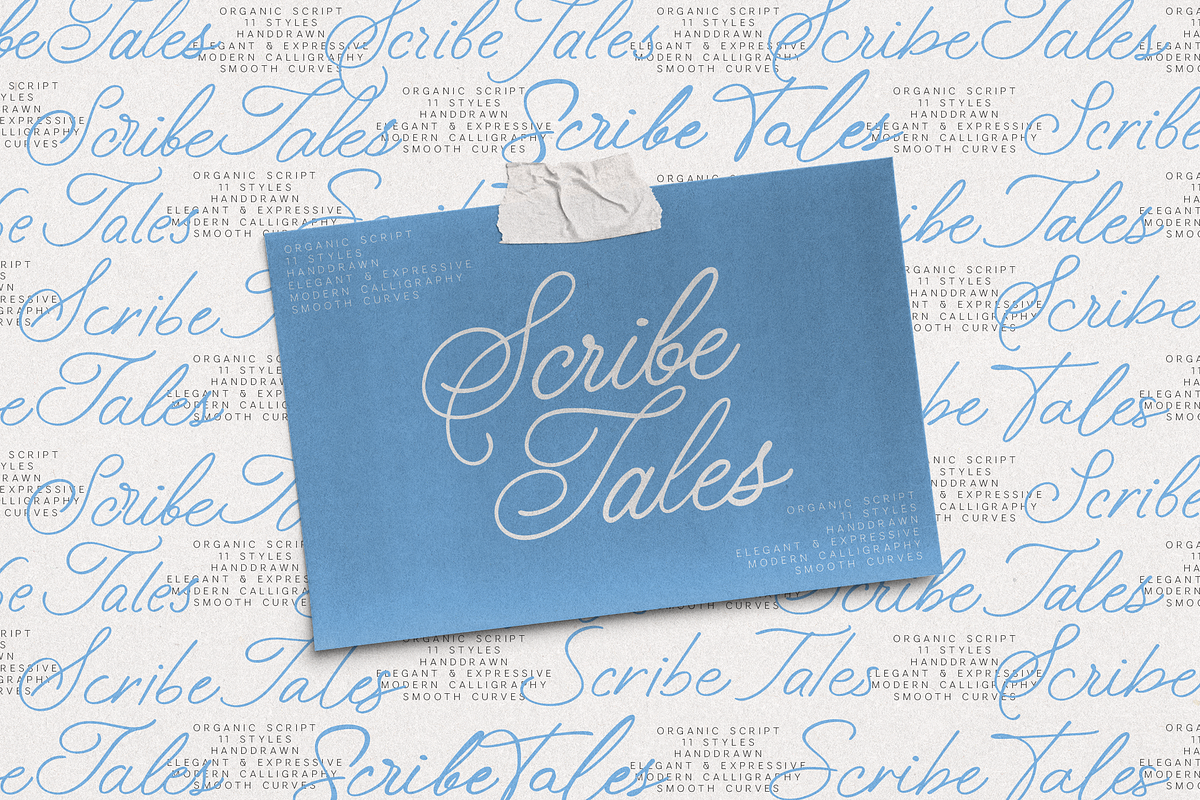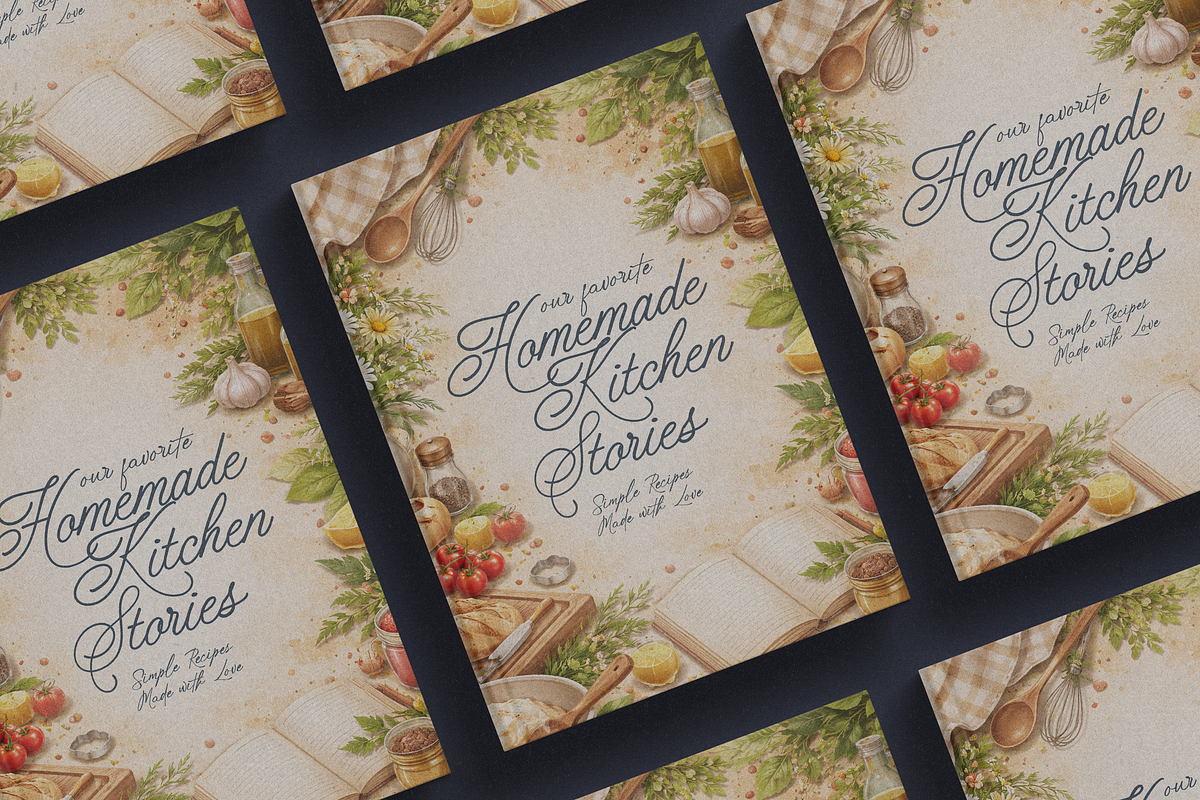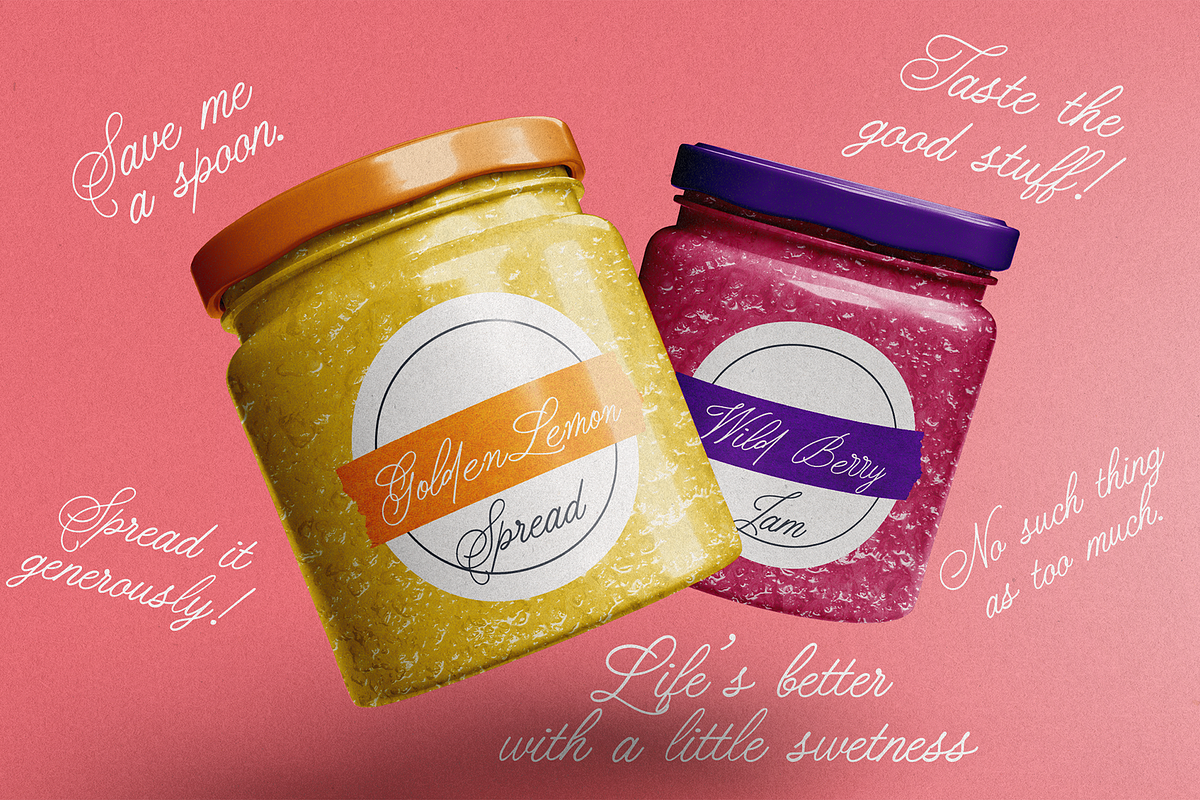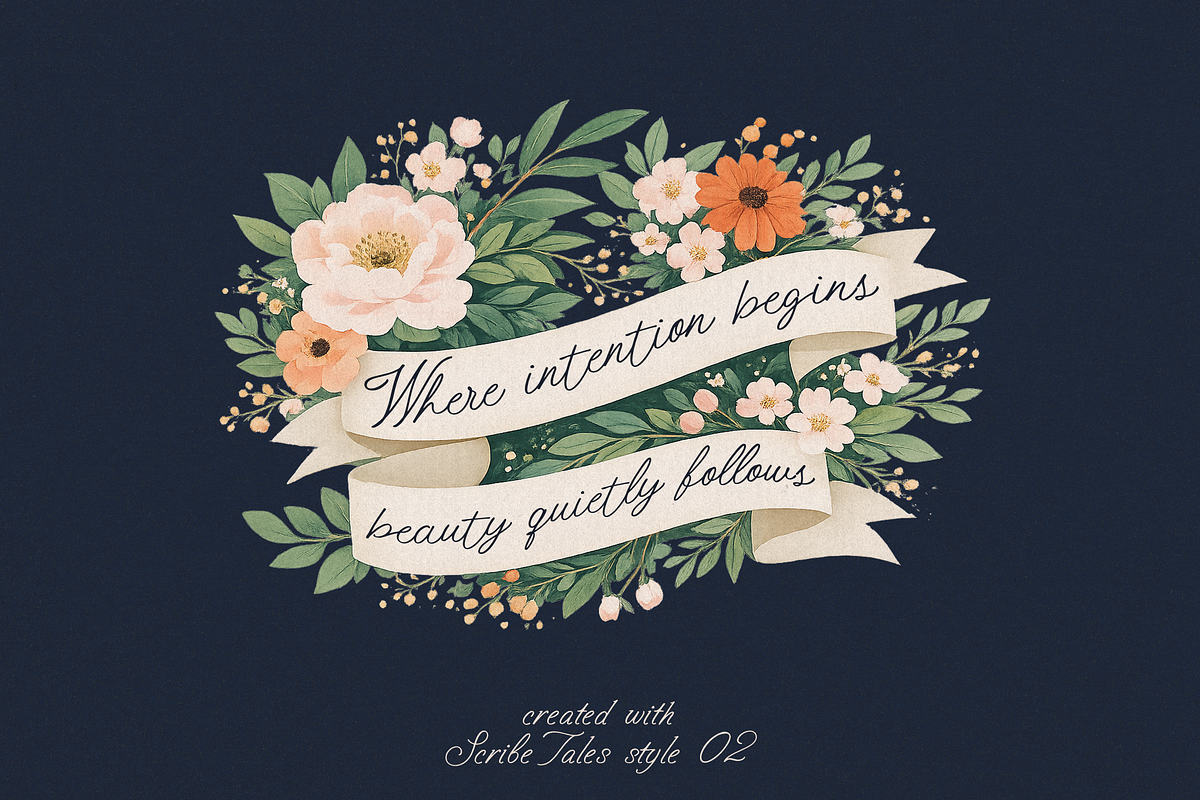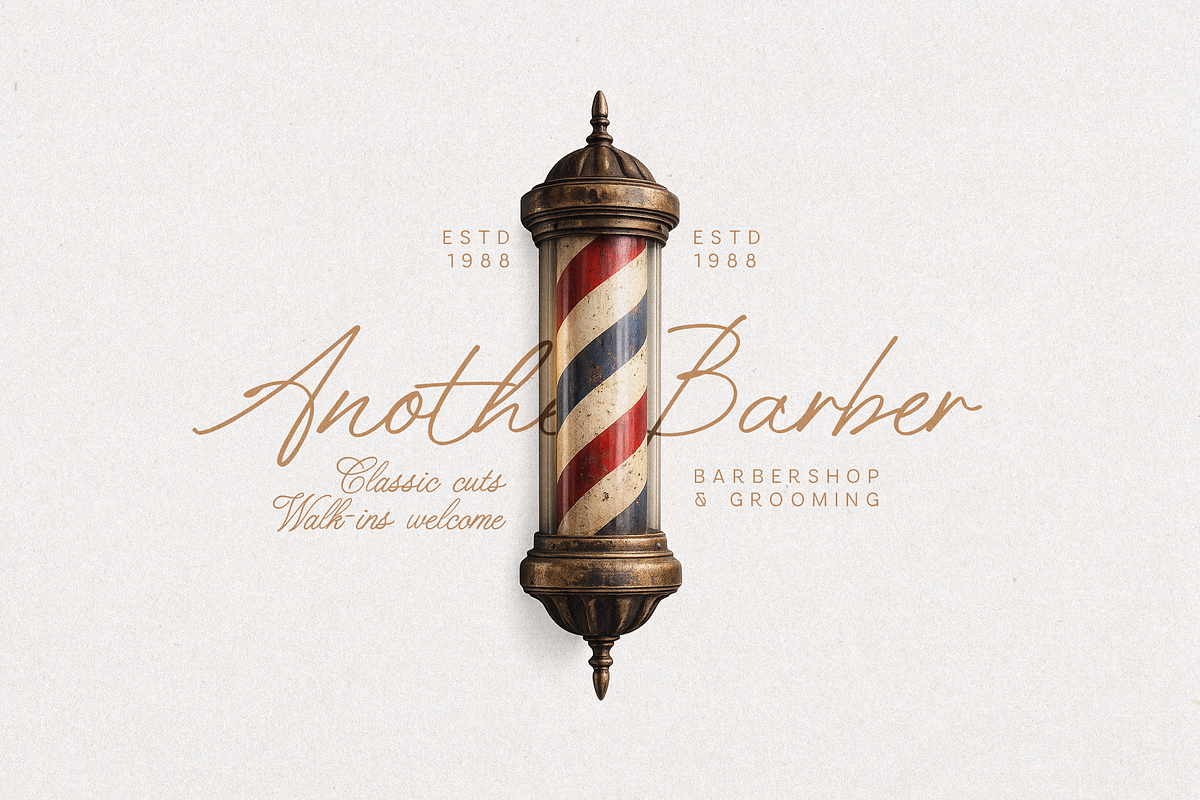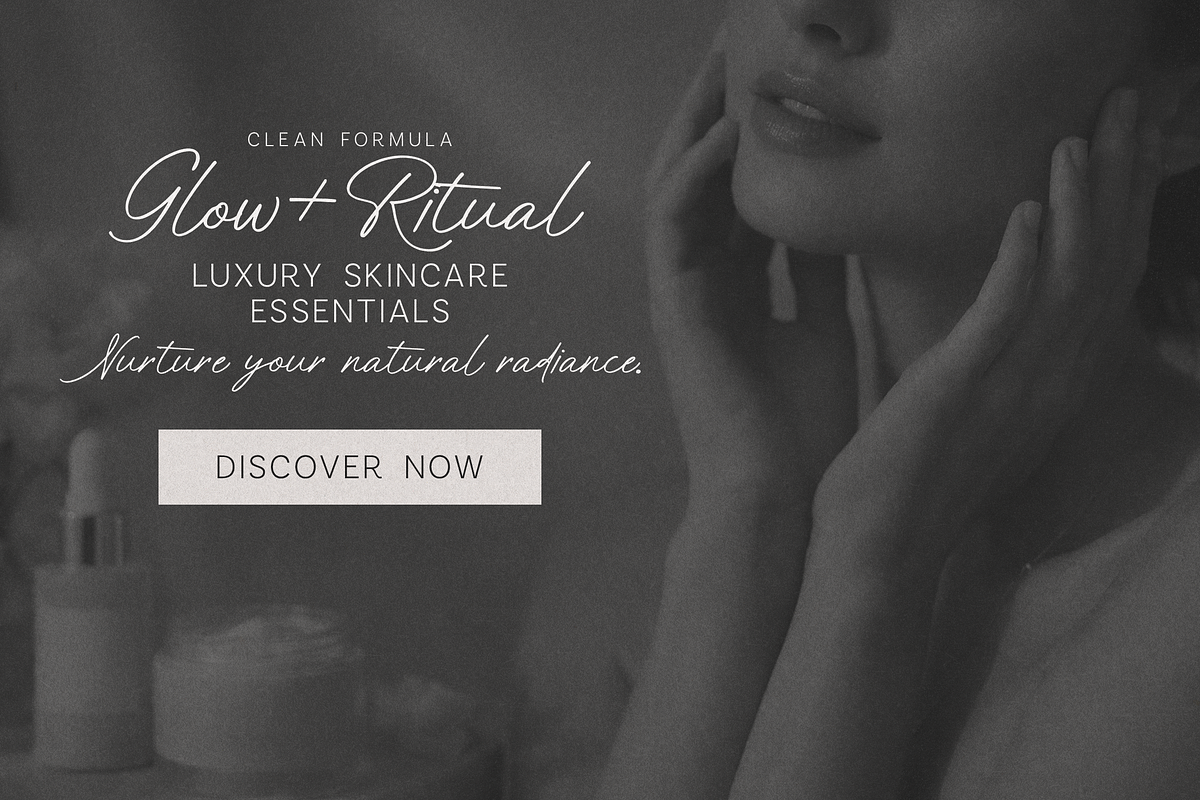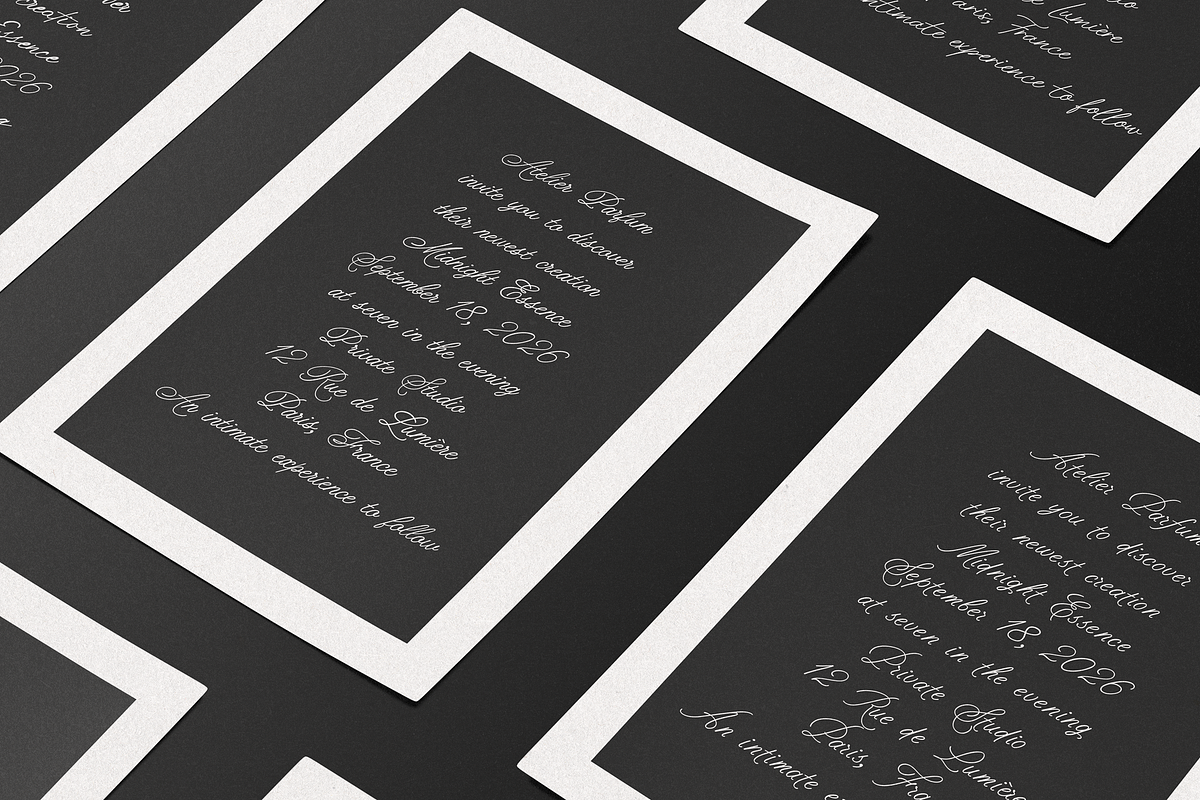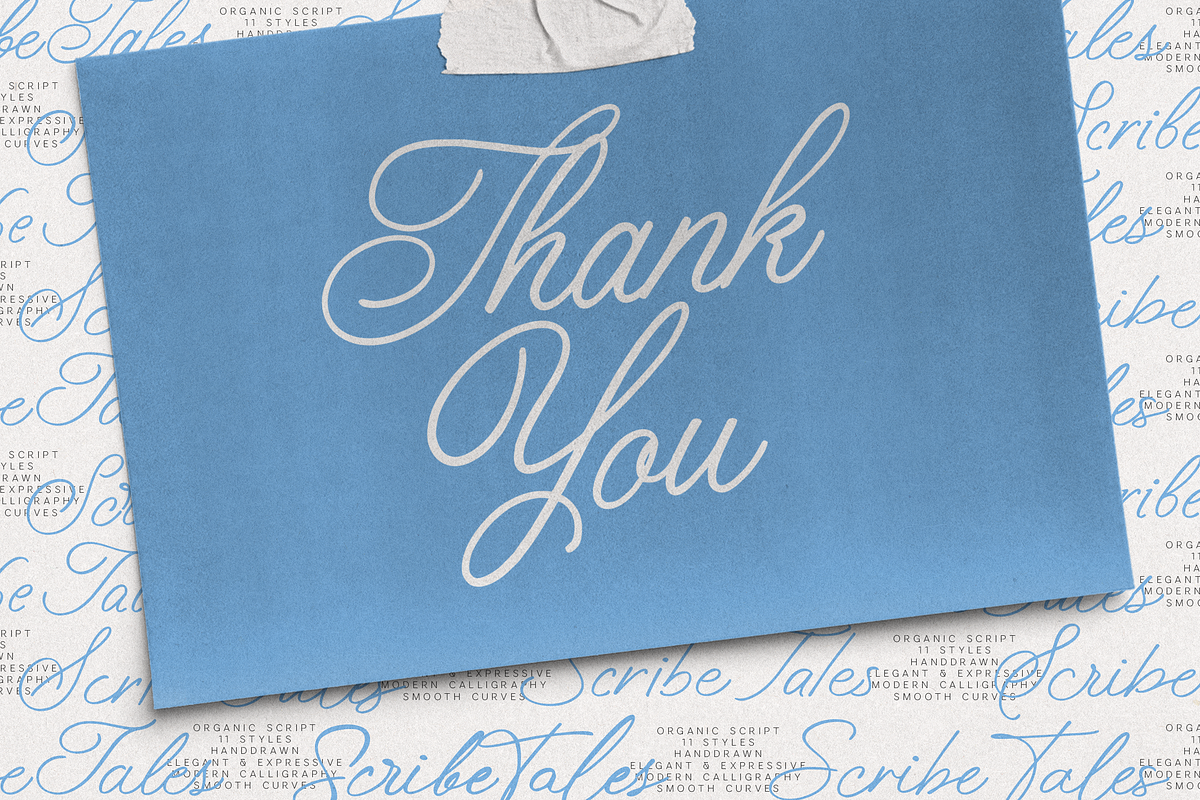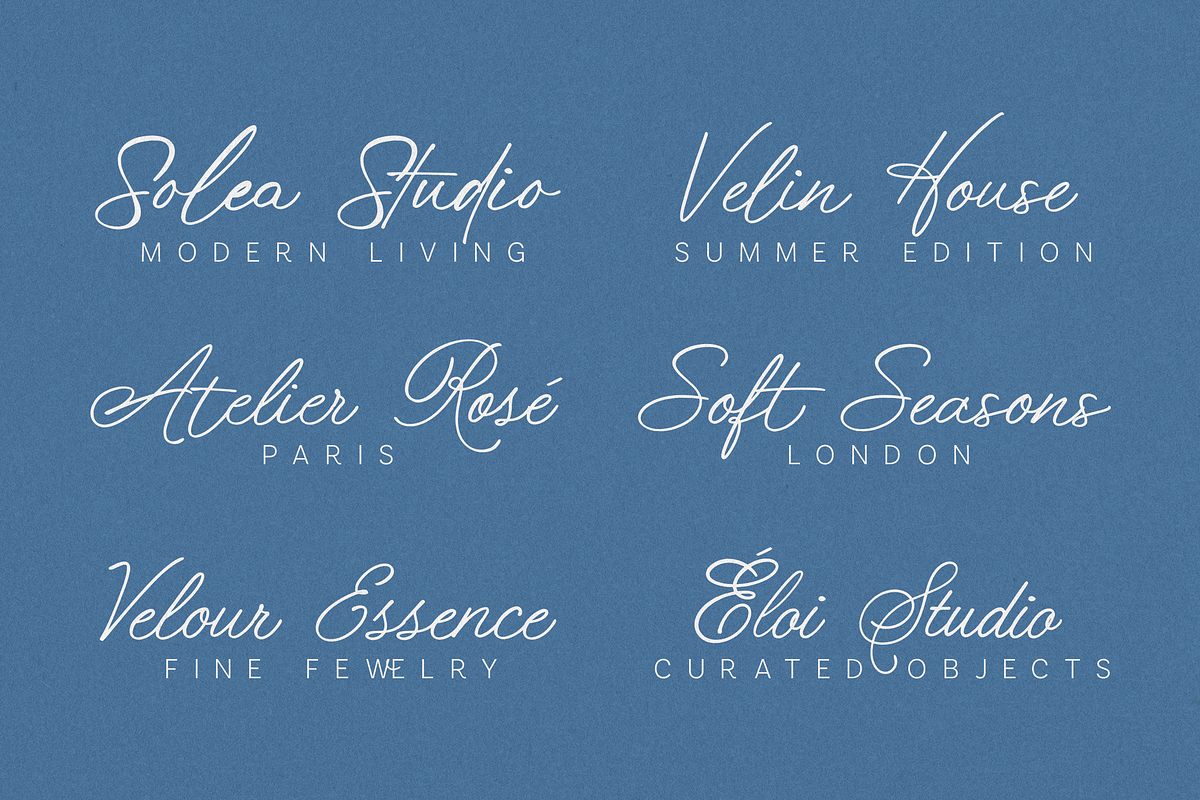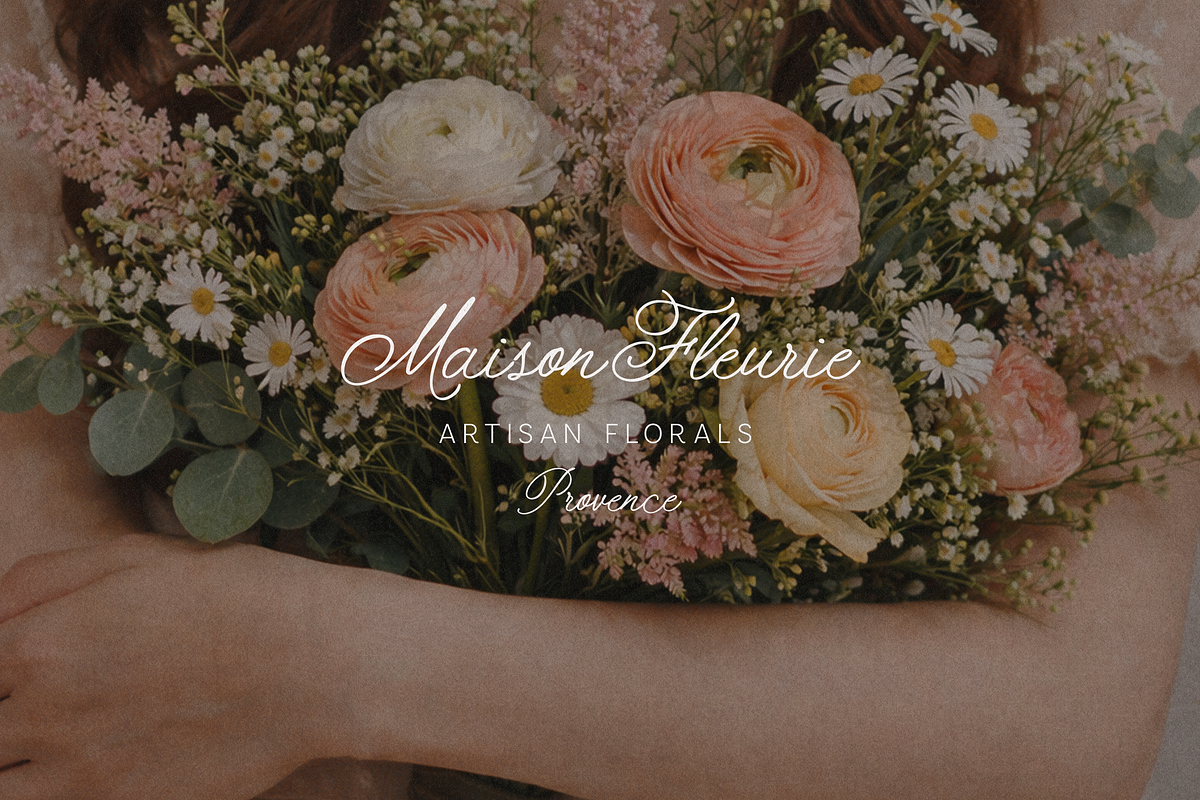
ScribeTales - Elegant Organic Script
Scribe Tales - Elegant Organic Script Typeface
Scribe Tales is a refined handwritten script font that blends natural flow with modern elegance. Designed with smooth curves and expressive strokes, it delivers a sophisticated calligraphy feel while remaining highly versatile for both digital and print design.
This typeface captures a perfect balance between luxury, warmth, and organic charm, making it ideal for branding, packaging, invitations, and editorial layouts.
Scribe Tales comes with a Regular Script + 10 unique stylistic variations, giving you full creative control over the look and personality of your typography.
Each stylistic set is also provided as a separate font (Style 01–10) - so you can quickly switch styles without digging into OpenType panels.
Elegant & modern handwritten script
1 Regular style + 10 stylistic sets (SS01–SS10)
Separate font files for each style (Style 01–10)
Smooth curves with natural handwritten feel
Beautiful ligatures and flowing connections
Uppercase & lowercase characters
Perfect for both headlines and refined body accents
Scribe Tales was crafted to elevate:
Luxury branding & logo design
Perfume & beauty packaging
Wedding invitations & stationery
Café, bakery & menu design
Editorial layouts & magazines
Social media & marketing visuals
Product labels & boutique branding
✦ Design Style
Soft yet expressive, Scribe Tales leans into a romantic calligraphy aesthetic with controlled elegance. The variety of stylistic sets allows you to go from:
minimal & clean
to decorative & flowing
to playful and organic
- all within one cohesive type family.
Instead of being just another script, Scribe Tales gives you multiple moods in one font. Whether you're designing a premium perfume label or a cozy bakery poster, you can instantly adapt the tone by switching styles.